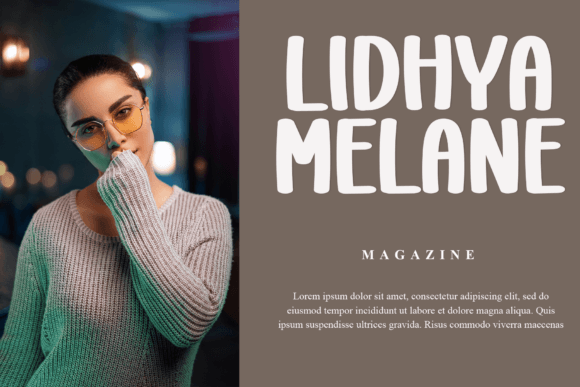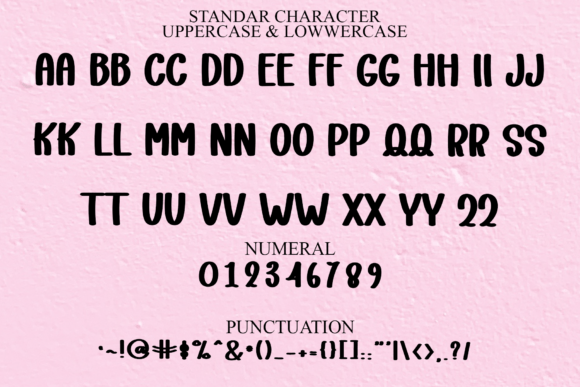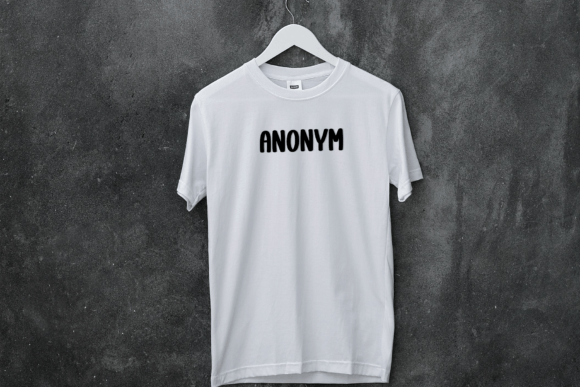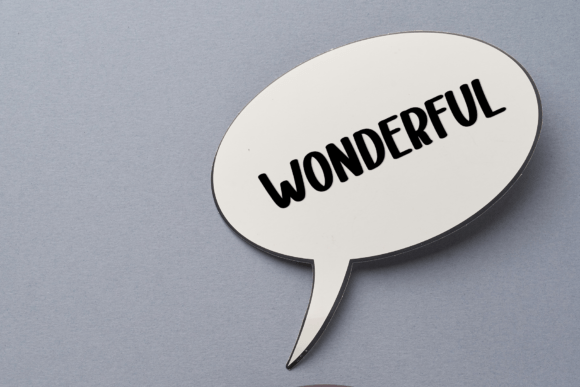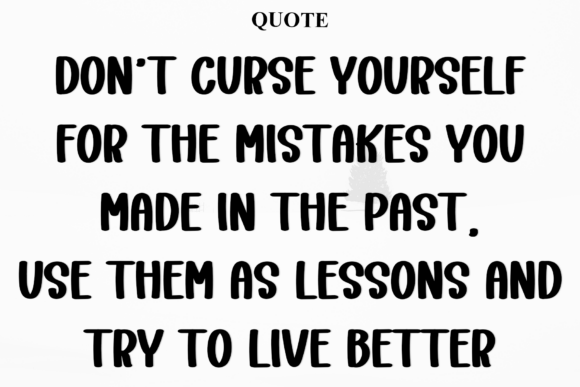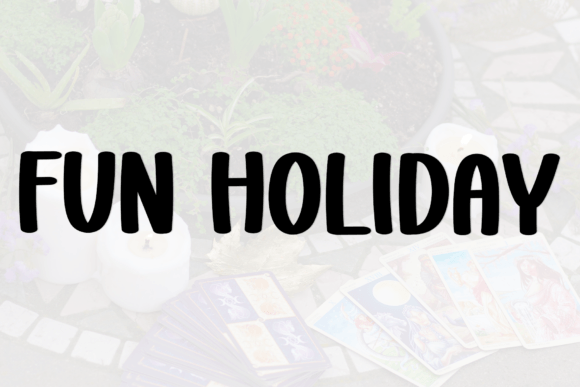
Introducing February Holiday Font: The Perfect Addition to Your Holiday Designs
Are you looking for a font that can add a touch of warmth and festivity to your holiday-themed designs? Look no further than February Holiday Font, a bold and modern display font that’s perfect for creating stunning greeting cards, posters, and branding materials. With its smooth, rounded edges and fun, festive energy, this typeface is sure to make your designs shine.
What Makes February Holiday Font So Special?
February Holiday Font is a unique and versatile typeface that’s specifically designed to bring a sense of joy and celebration to your designs. Its smooth, rounded edges create a warm and approachable feel that’s perfect for holiday-themed designs, while its bold and modern style ensures that your message will stand out from the crowd.
Whether you’re a designer, crafter, or DIY enthusiast, February Holiday Font is the perfect addition to your toolkit. With its wide range of uses, from greeting cards and posters to branding and packaging, this font is sure to become a go-to choice for any project that requires a touch of holiday cheer.
Key Features of February Holiday Font
- Bold and modern display font: February Holiday Font is a statement-making typeface that’s perfect for creating eye-catching designs that demand attention.
- Smooth, rounded edges: The font’s smooth, rounded edges create a warm and approachable feel that’s perfect for holiday-themed designs.
- Fun and festive energy: February Holiday Font is designed to bring a sense of joy and celebration to your designs, making it perfect for holiday-themed projects.
- Perfect for a wide range of projects: From greeting cards and posters to branding and packaging, February Holiday Font is a versatile typeface that can be used for a wide range of projects.
How to Use February Holiday Font in Your Designs
February Holiday Font is incredibly easy to use, and can be incorporated into your designs in a variety of ways. Here are a few ideas to get you started:
- Create stunning holiday greeting cards: Use February Holiday Font to create beautiful and eye-catching holiday greeting cards that are sure to impress your friends and family.
- Design festive posters and flyers: Add a touch of holiday cheer to your posters and flyers with February Holiday Font, perfect for promoting holiday events and sales.
- Develop a cohesive brand identity: Use February Holiday Font to create a cohesive brand identity that’s perfect for holiday-themed branding and packaging.
Why Choose February Holiday Font?
With so many fonts to choose from, why should you choose February Holiday Font for your holiday designs? Here are just a few reasons:
- Unique and eye-catching: February Holiday Font is a unique and eye-catching typeface that’s sure to make your designs stand out from the crowd.
- High-quality design: With its smooth, rounded edges and bold, modern style, February Holiday Font is a high-quality typeface that’s perfect for professional-grade designs.
- Easy to use: February Holiday Font is incredibly easy to use, and can be incorporated into your designs in a variety of ways.
If you’re looking for a font that can add a touch of warmth and festivity to your holiday-themed designs, look no further than February Holiday Font. With its smooth, rounded edges and fun, festive energy, this typeface is sure to make your designs shine. Whether you’re a designer, crafter, or DIY enthusiast, February Holiday Font is the perfect addition to your toolkit.